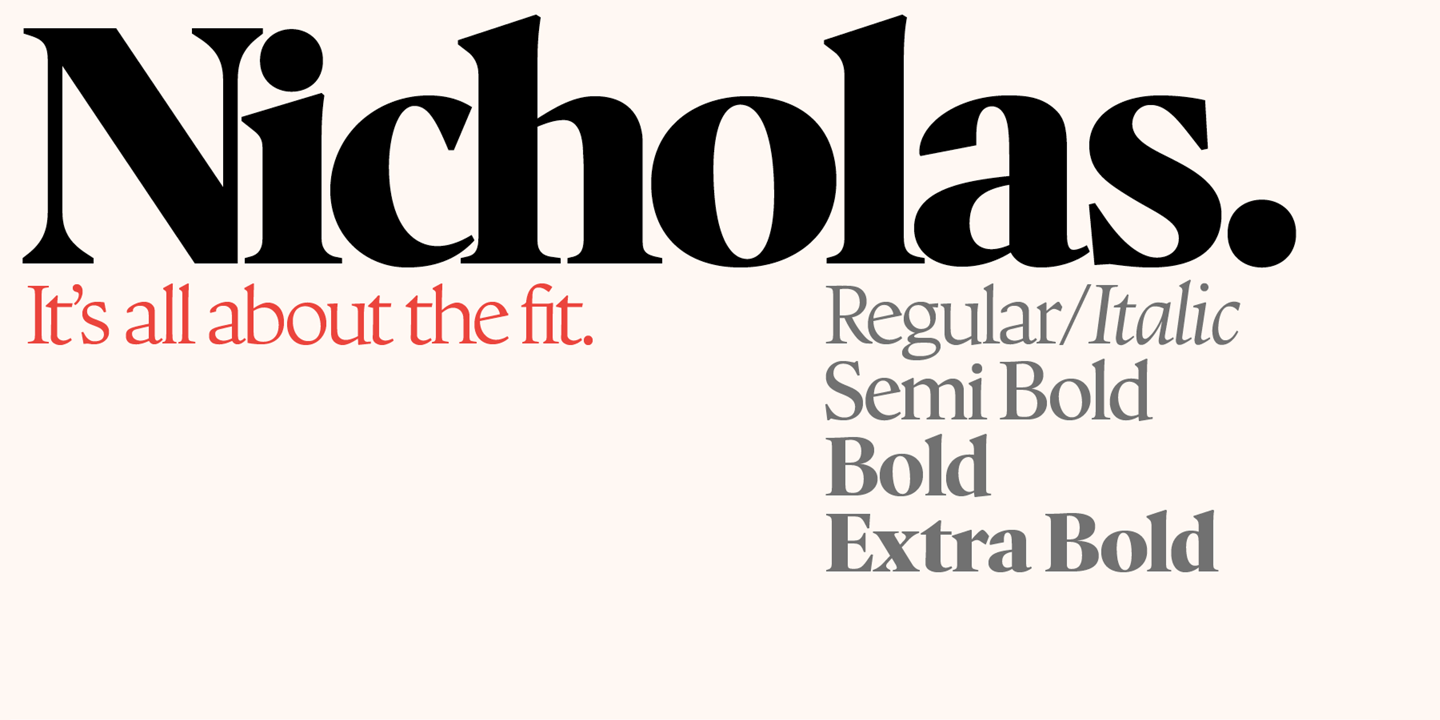
Nicholas Font is ideal for premium personal branding, luxury lifestyle magazines, high-end gentleman's clothing, traditional barbershop signage, artisanal craft branding, boutique hotel communications, refined dining establishments, and sophisticated men's lifestyle products. This distinguished typeface brings timeless gentleman's elegance and refined masculinity to any project requiring classic sophistication with personal character and aristocratic charm.
What makes Nicholas Font exciting is its perfect embodiment of refined gentlemanly character and timeless masculine elegance that evokes the sophistication of traditional craftsmanship and personal distinction. The font features carefully balanced letterforms with subtle personality details that convey both strength and refinement, creating the ideal balance between approachable warmth and authoritative presence. Its classical proportions and dignified character make it perfect for brands targeting discerning gentlemen who appreciate quality, tradition, and personal style. The typeface's sophisticated charm ensures immediate recognition of premium quality and gentleman's refinement.
The Nicholas Font family includes Regular, Bold, Light, Italic, and Script variants, each maintaining the signature gentleman's elegance while offering different expressions of refined masculinity. The family features classical ligatures, stylistic alternates, and traditional elements that enhance its versatility for luxury men's lifestyle and premium personal branding applications. These variants provide comprehensive tools for creating sophisticated masculine typography with timeless appeal.
Whether you're designing for luxury men's brands, traditional craftsmanship businesses, or refined lifestyle products, Nicholas Font Free Download delivers the gentleman's sophistication that defines classic masculine elegance. Its combination of personal character and timeless refinement makes it perfect for communicating quality craftsmanship, masculine sophistication, and premium lifestyle with authentic gentleman's appeal and distinguished personal presence.